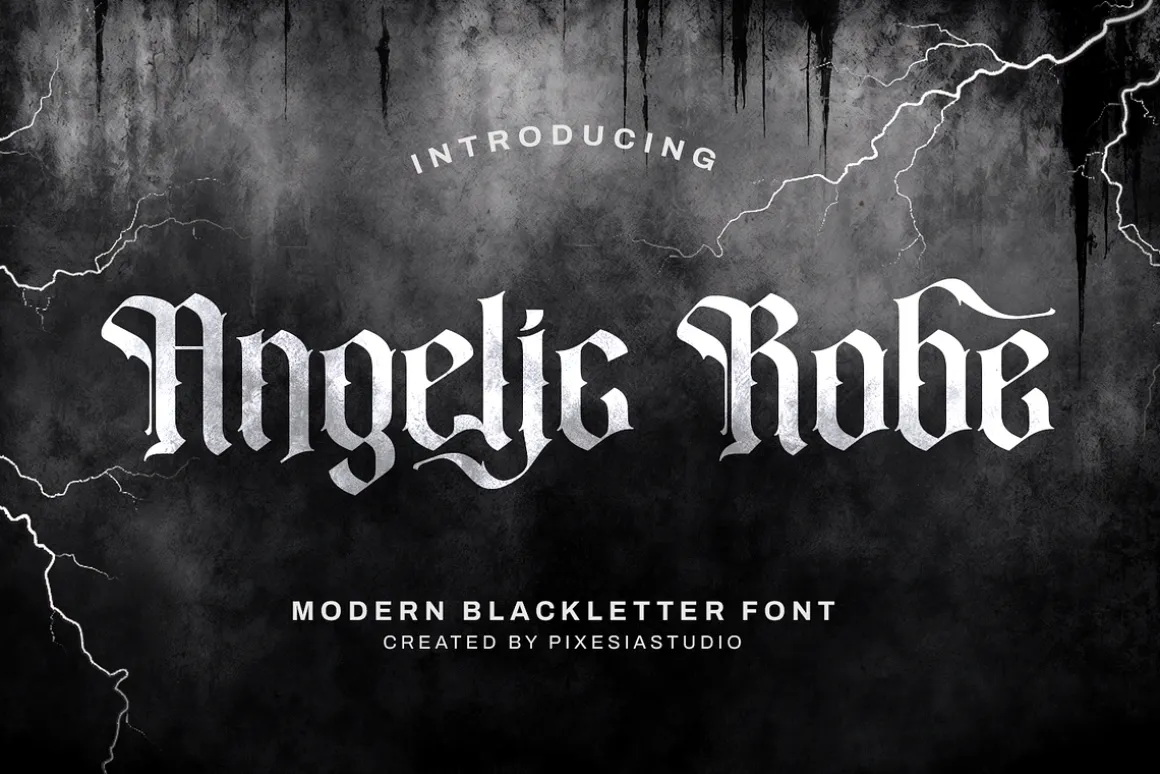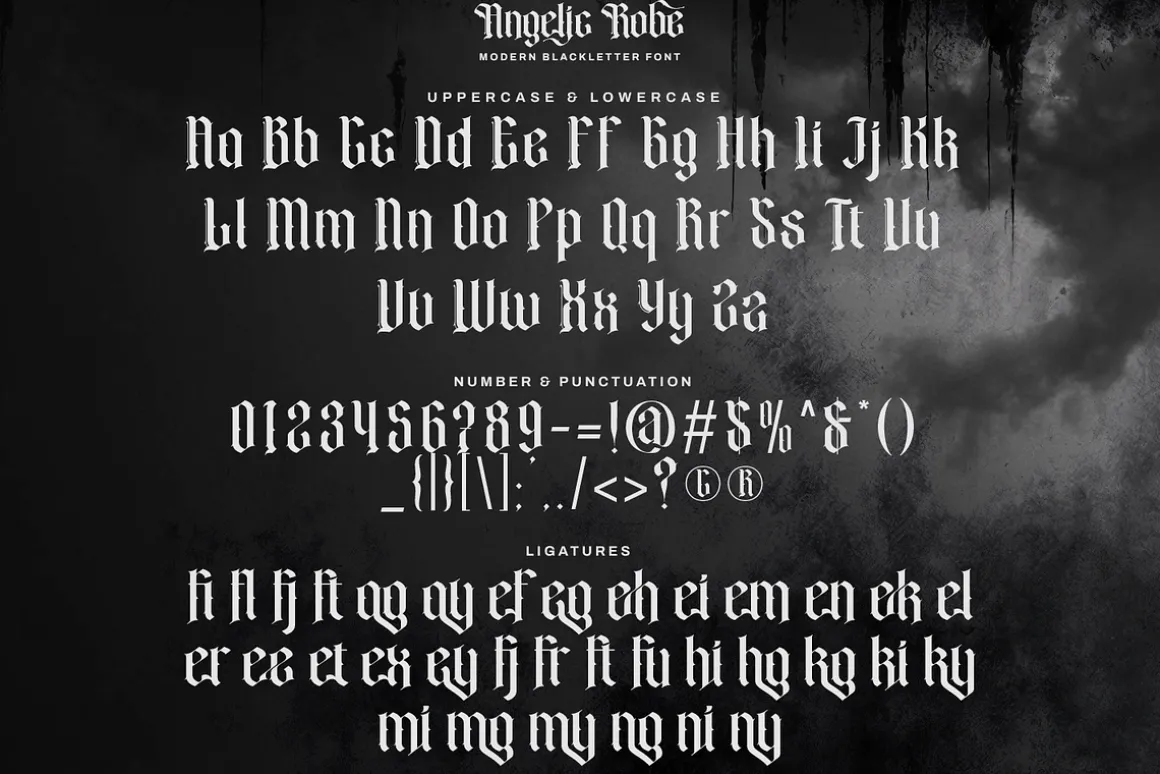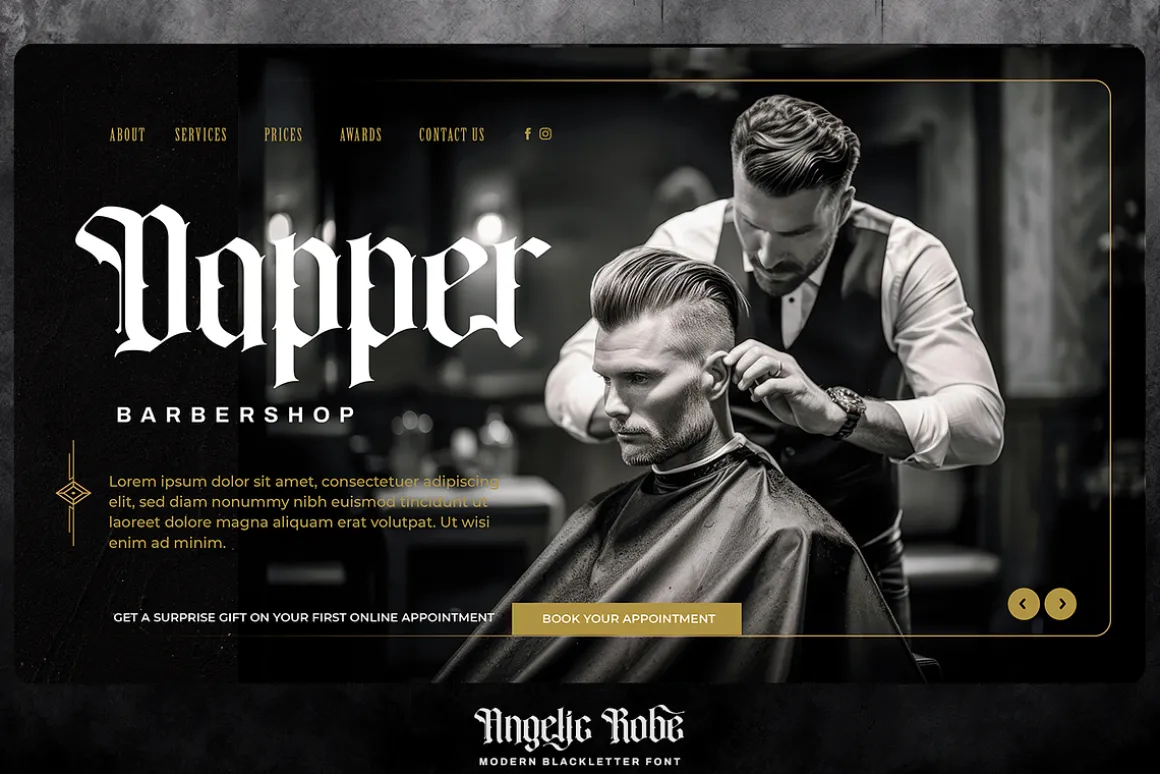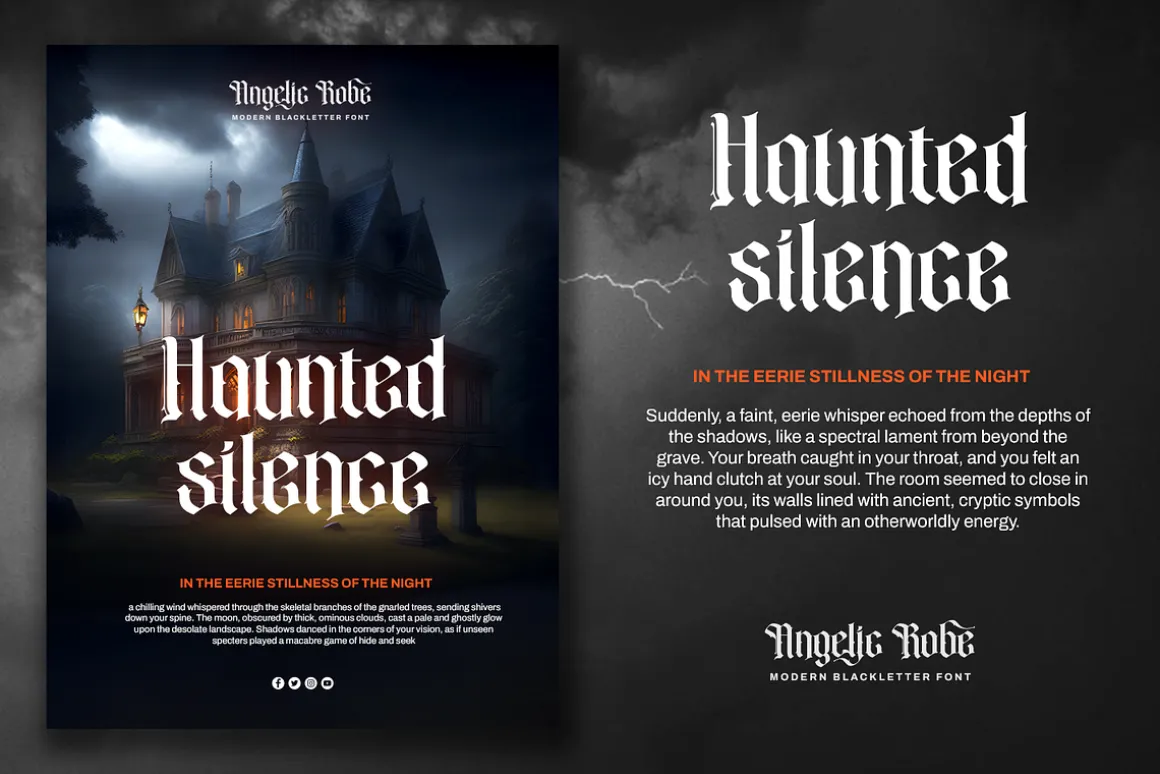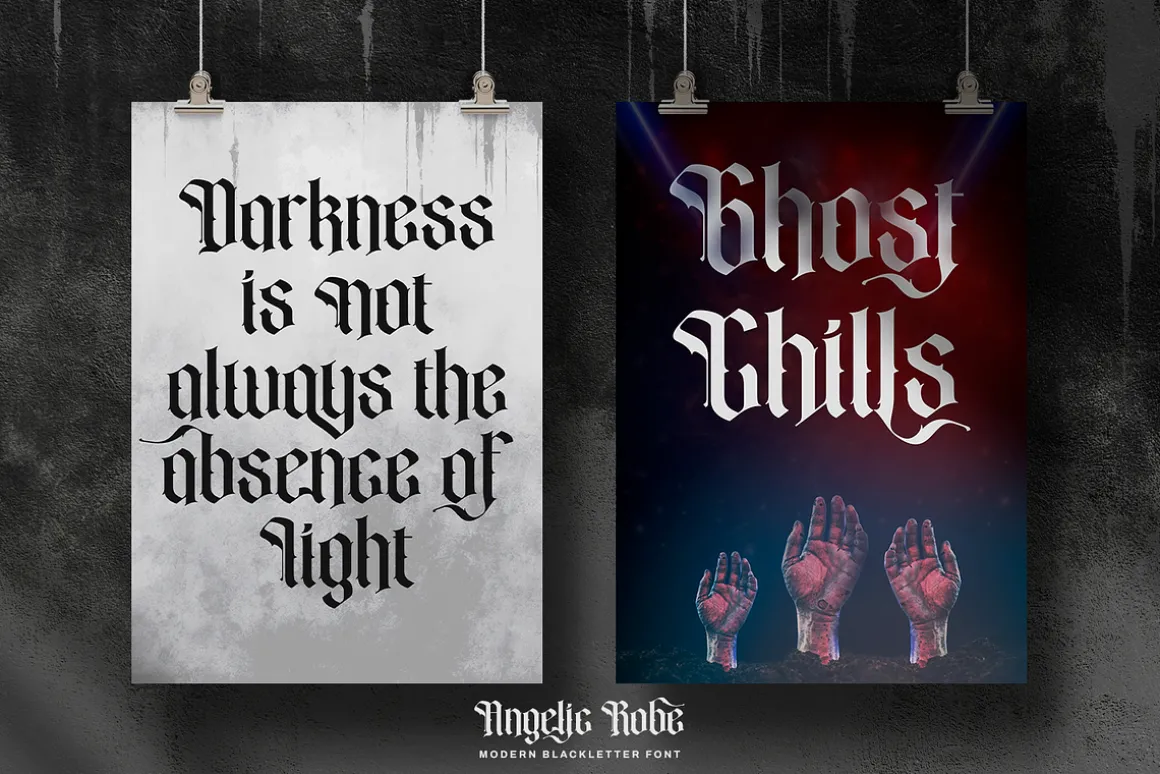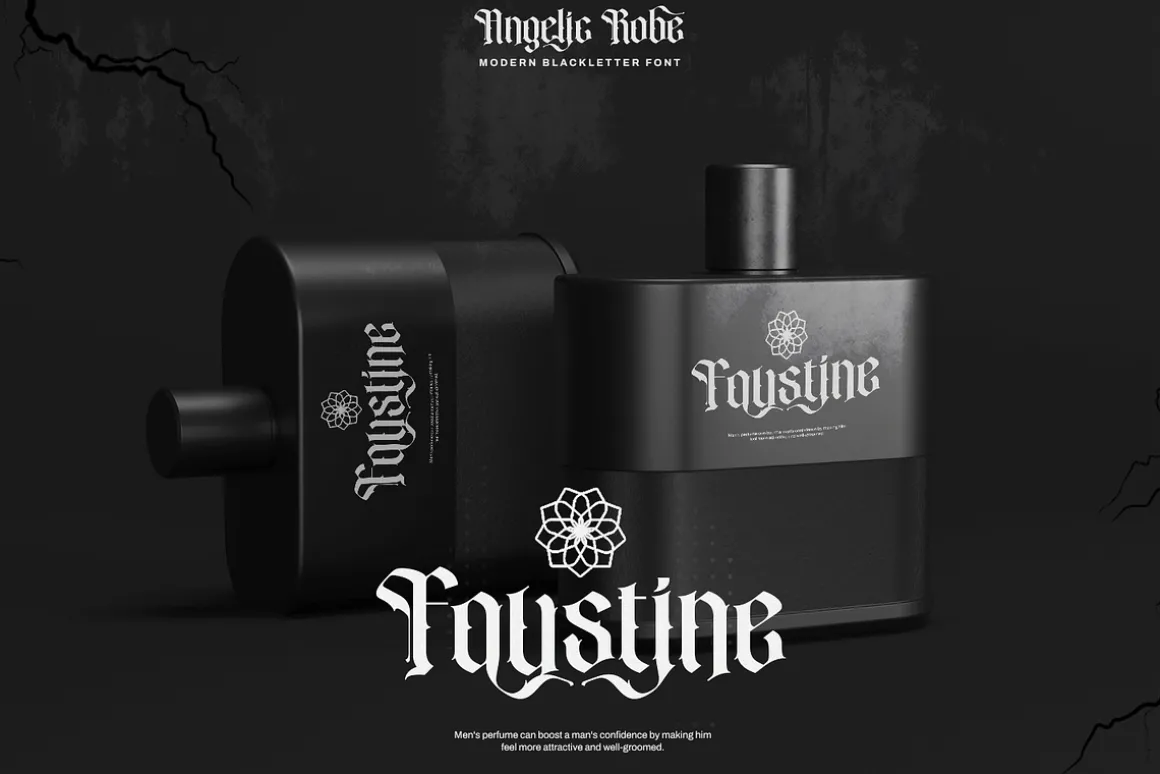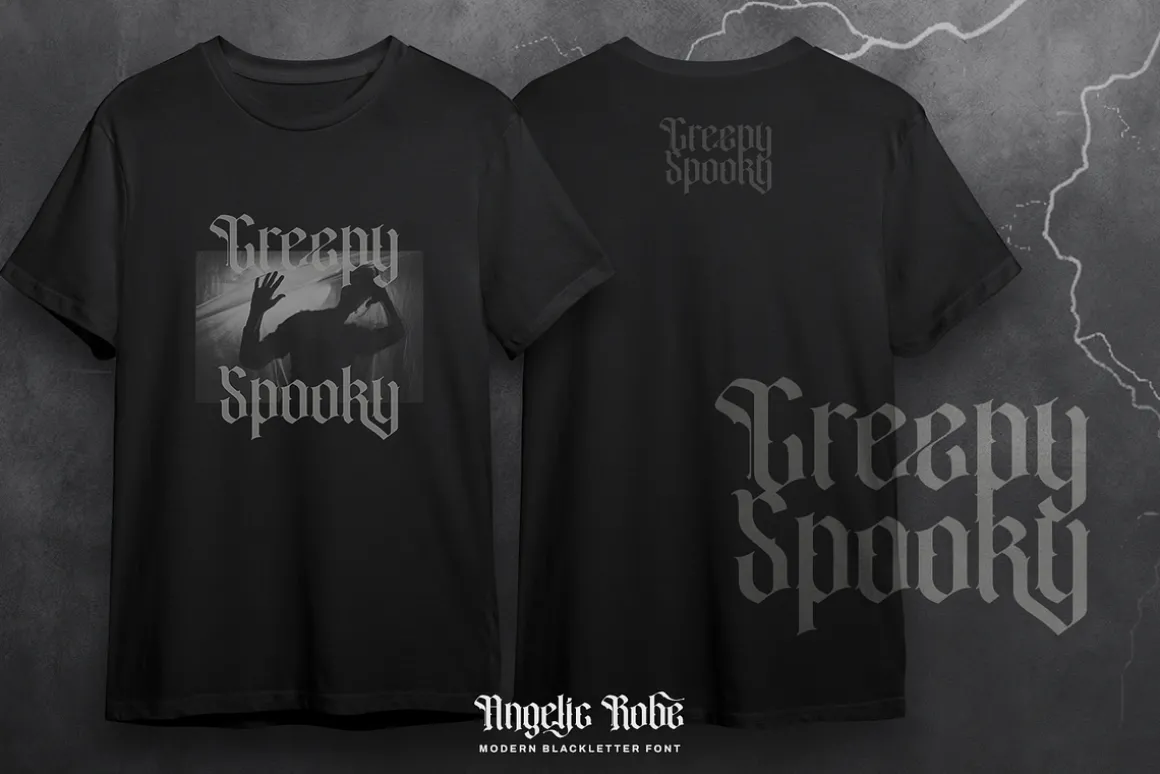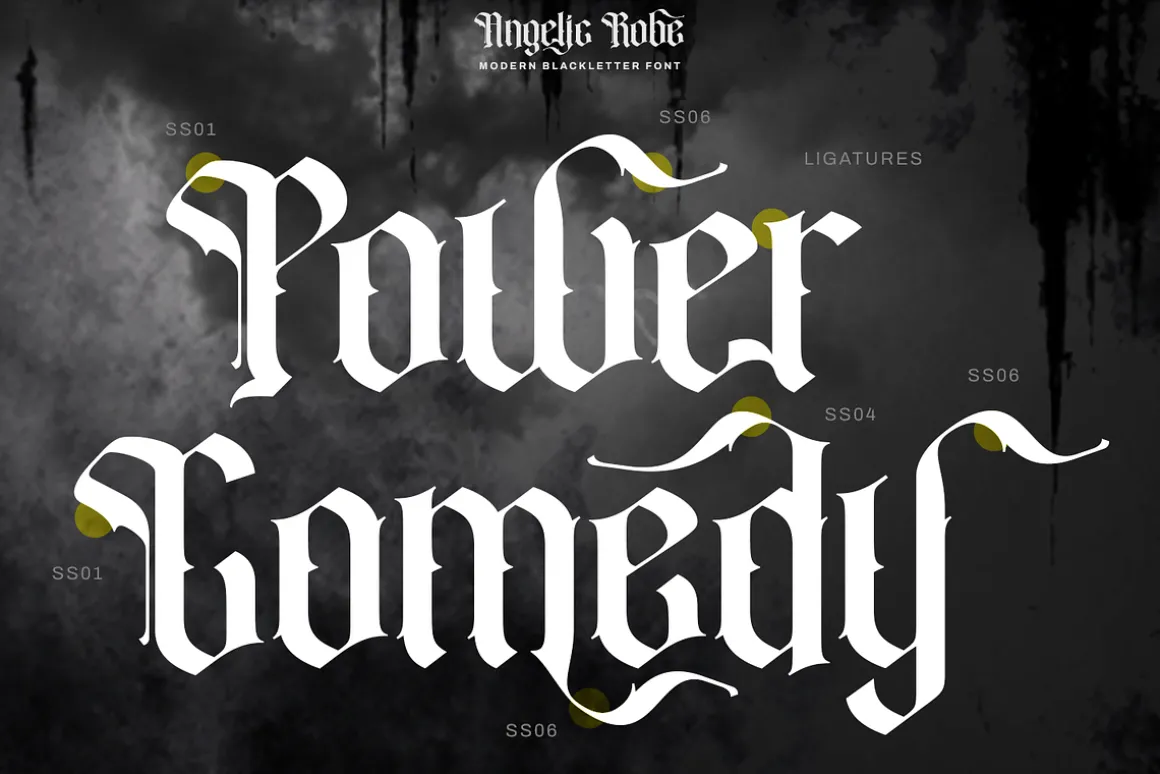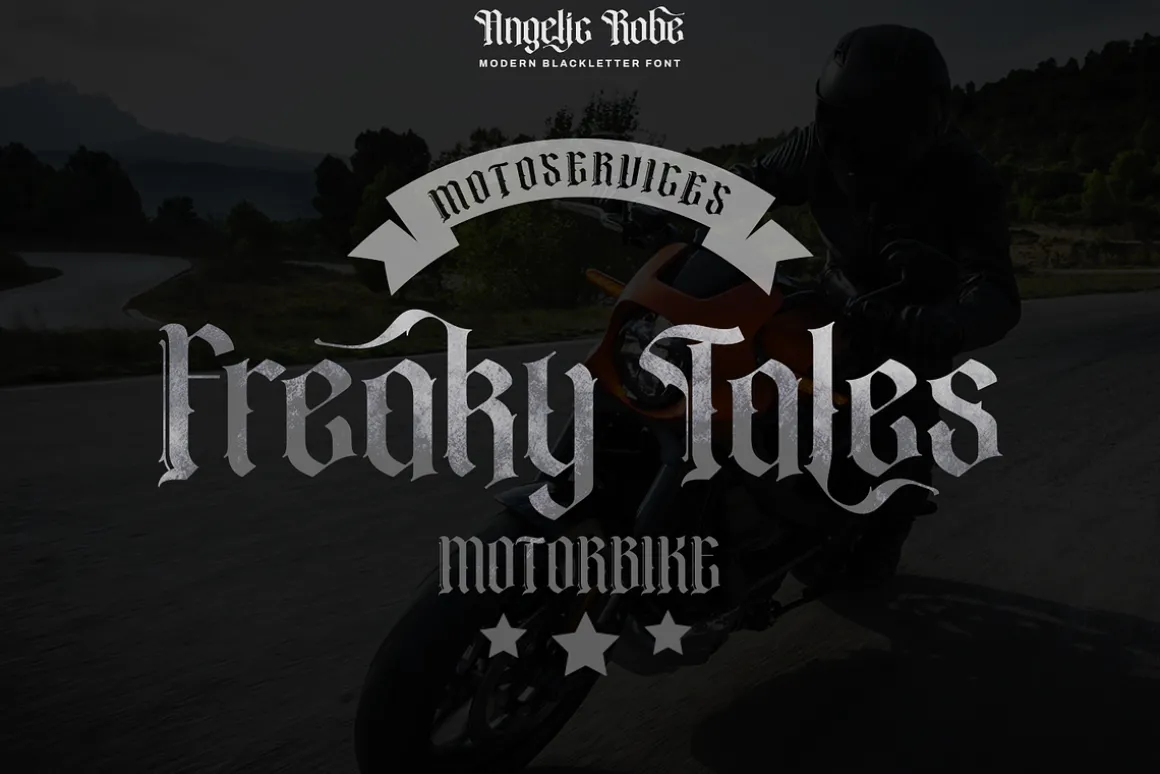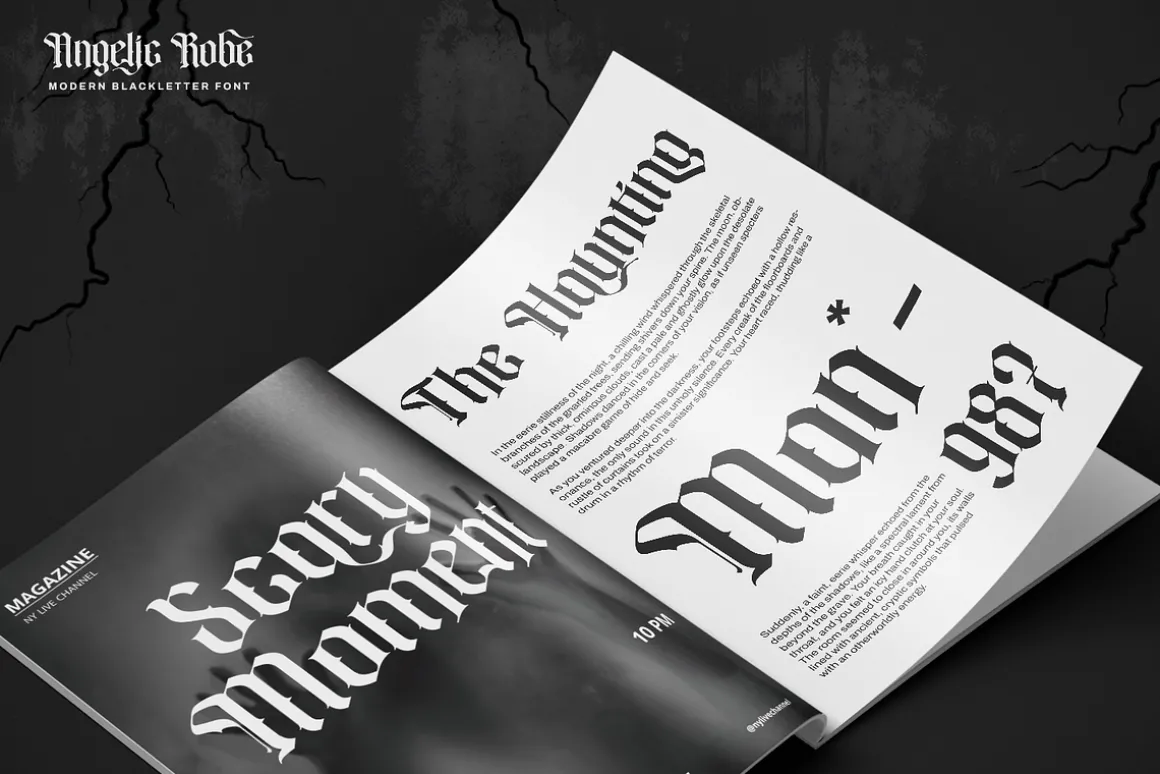
Introducing Angelic Robe – Modern Blackletter Font
Angelic Robe is a modern blackletter font that combines timeless elegance with a contemporary twist.
Angelic Robe is perfectly suited for branding, logotype, social media posts, advertisement, product packaging, label, photography, watermark, t-shirt, website design, invitation, stationery and any projects seeking a touch of modern blackletter elegance.
FEATURES
- Stylistic Alternates
- Ligatures
- Uppercase and Lowercase letters
- Numbering and Punctuations
- Multilingual Support including Afrikaans, Albanian, Basque, Catalan, Danish, Dutch, English, Estonian, Faroese, Filipino, Finnish, French, Galician, German, Icelandic, Indonesian, Irish, Italian, Malay, Norwegian Bokmål, Portuguese, Spanish, Swahili, Swedish, and Zulu